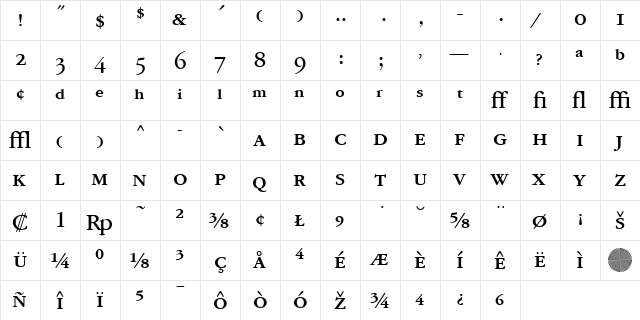
GarryMondrianExpt4 BookSH Font Preview
GarryMondrianExpt4 BookSH
Design Context for GarryMondrianExpt4 Typeface
GarryMondrianExpt4 is a composed and adaptable typeface that performs quietly and consistently across a wide range of design contexts.
Pro Tip: Use GarryMondrianExpt4 in both headline and body roles to test its range before committing to a single application.